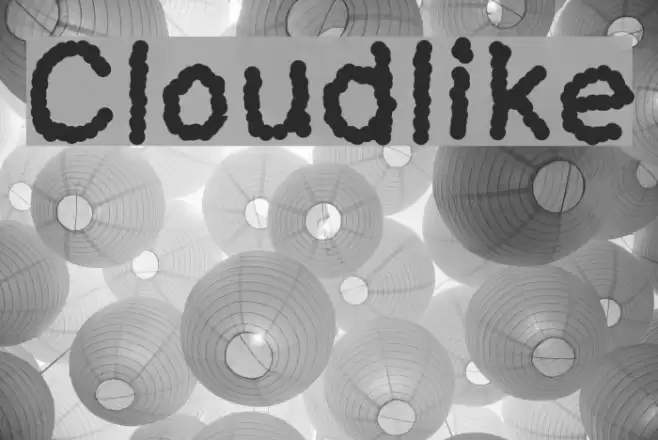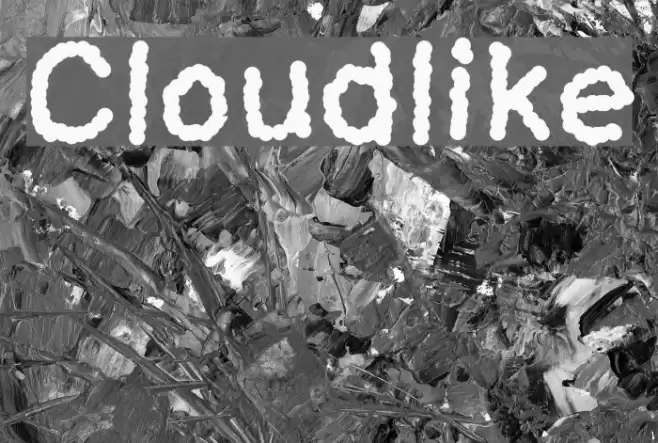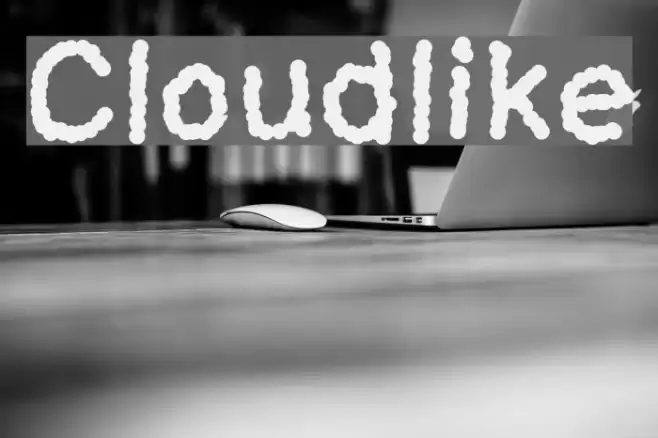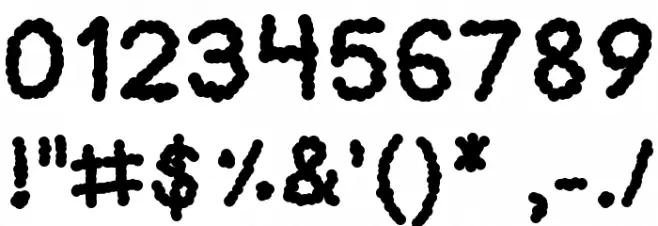
Cloudlike Font
Cloudlike Description
This playful and whimsical font features a unique, cloud-like texture that gives each character a fluffy, soft appearance. The rounded edges and irregular outlines create a sense of movement and lightness, making it ideal for projects that require a fun and approachable aesthetic. The font maintains a consistent weight throughout, with medium contrast in stroke thickness, adding to its casual and friendly vibe. Its distinct style is perfect for capturing attention and conveying a sense of creativity and imagination.
A playful, cloud-textured font with a whimsical and approachable style from Cartoon fonts.
- Proposed Projects: Ideal for children's books, playful branding, greeting cards, and creative posters.
- Overall Style: Whimsical
- Use Case: Logos, Headlines, Posters